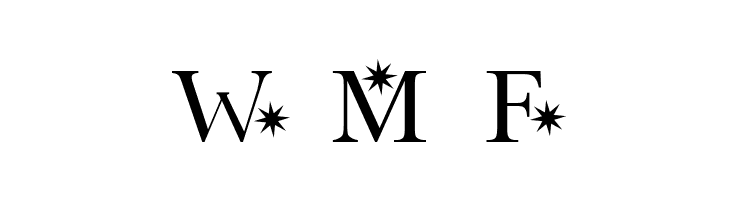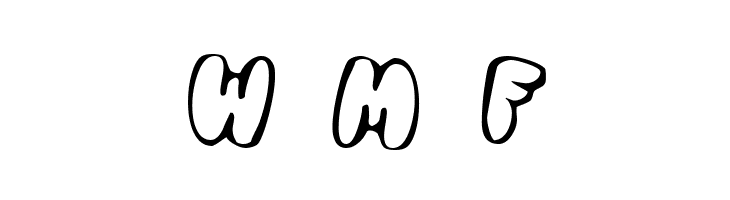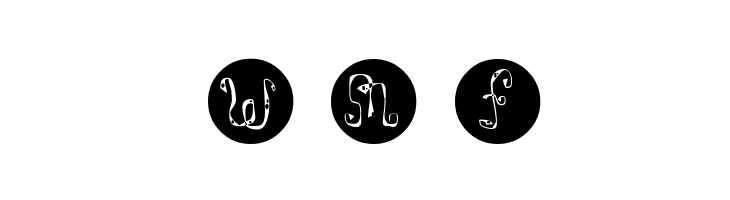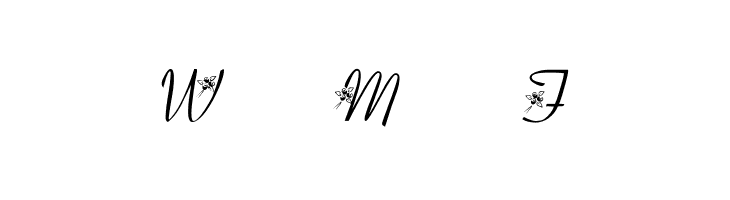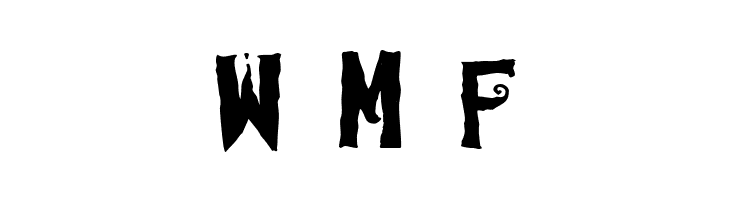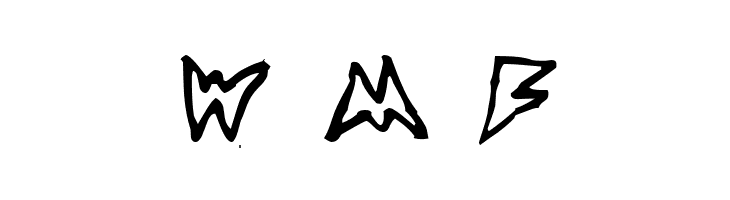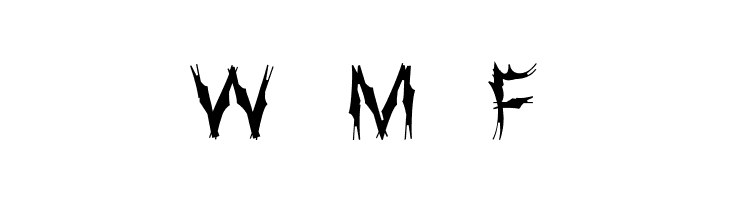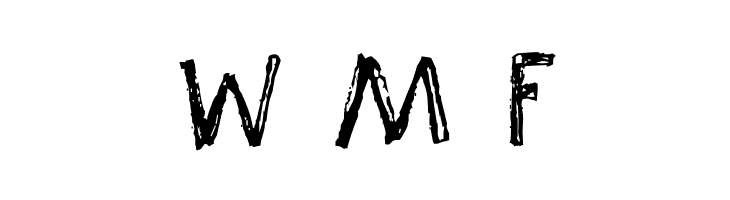
A whimsical and decorative font with playful embellishments on each character.
A gothic-inspired font with bold, angular serifs and medieval embellishments.
A bold, brush-like font with jagged strokes and an adventurous, dynamic style.
An ornate and decorative font with intricate flourishes and embellishments.
A decorative and intricate font with bold, embellished characters.
A decorative and gothic font with sharp angles and intricate embellishments.
A playful font with bubble embellishments and a lively, tilted design.
An ornate, decorative font with floral embellishments.
A whimsical and decorative font with playful embellishments and high contrast strokes.
A bold, angular font with a rebellious and dynamic style.
A decorative font with bold outlines and star-like embellishments.
A bold, jagged font with a rebellious, graffiti-inspired style.
A bold, edgy font with sharp, angular lines and a playful, rebellious style.
An ornate and decorative font with intricate swirls and embellishments.
A decorative font with star and sparkle embellishments for a festive look.
A playful, bold font with thick, rounded, outlined letters.
A bold, jagged, and dynamic font with a chaotic, artistic style.
A dynamic, graffiti-inspired font with rough, hand-drawn strokes and a rebellious aesthetic.
A decorative, Celtic-inspired font with intricate details and embellishments.
An ornate and decorative font with intricate swirls and embellishments.
A whimsical and playful font with bold, irregular letterforms and swirling embellishments.